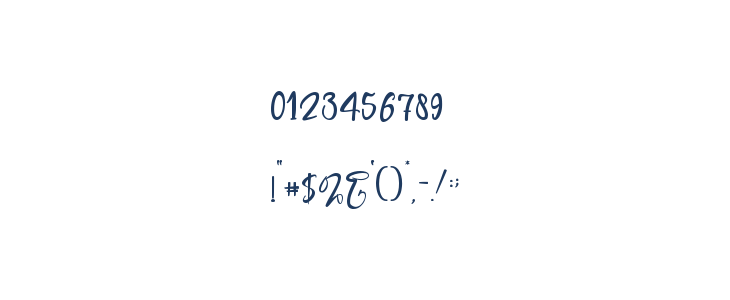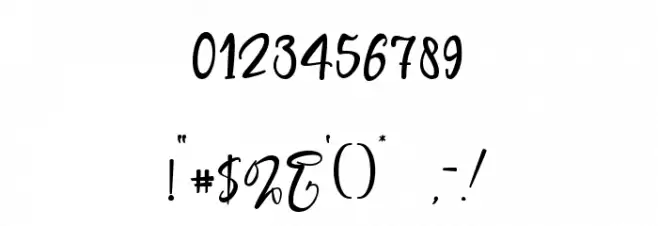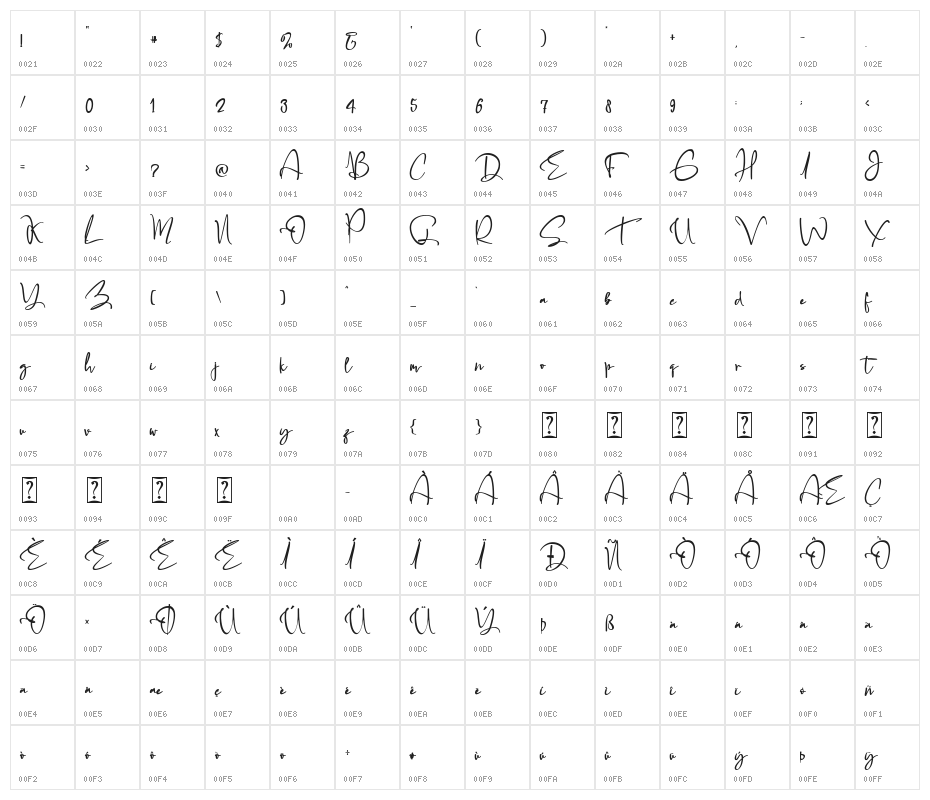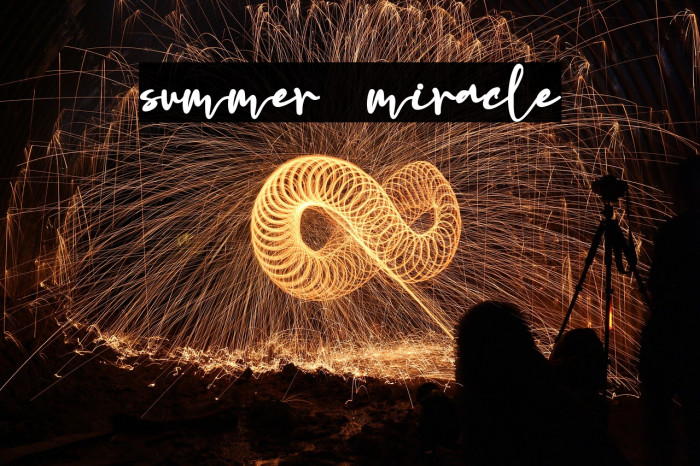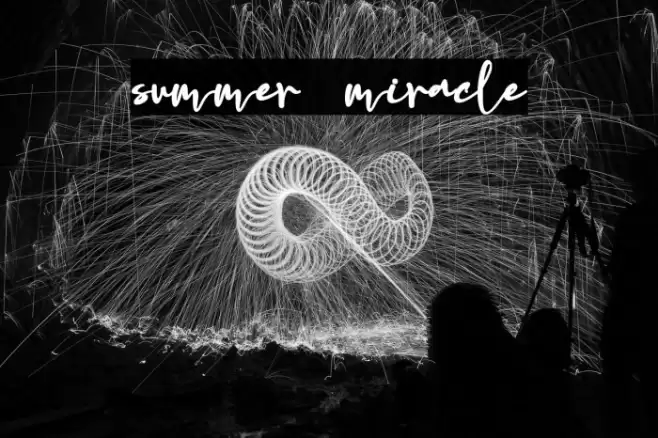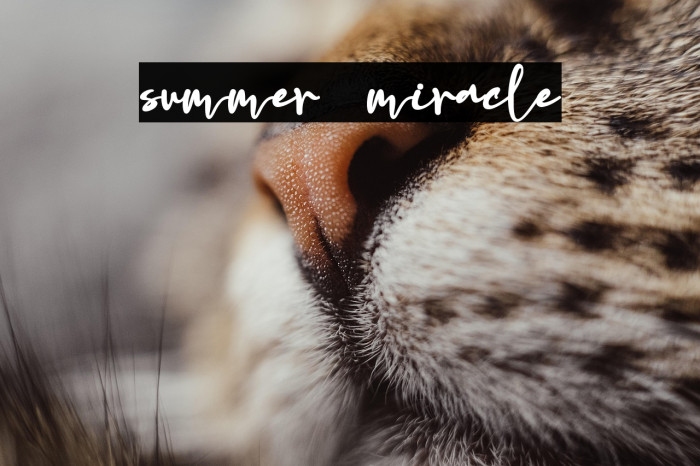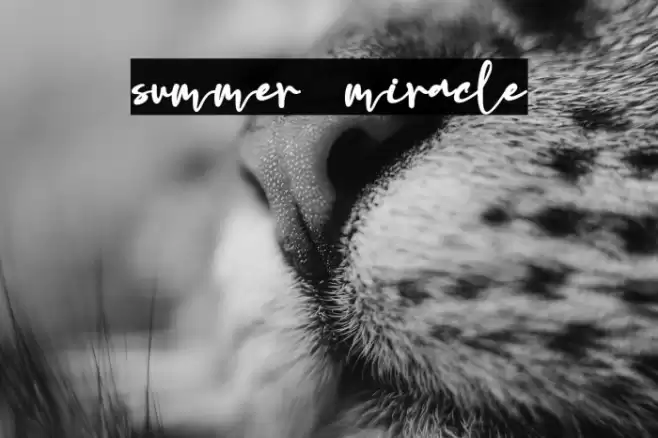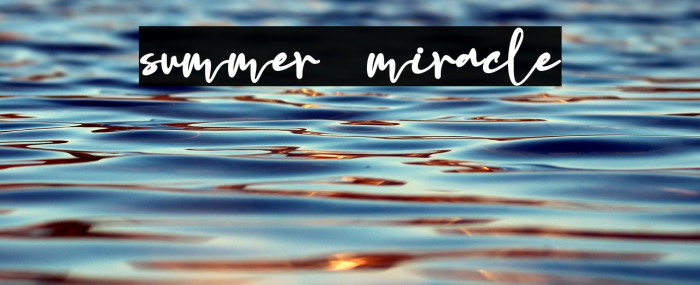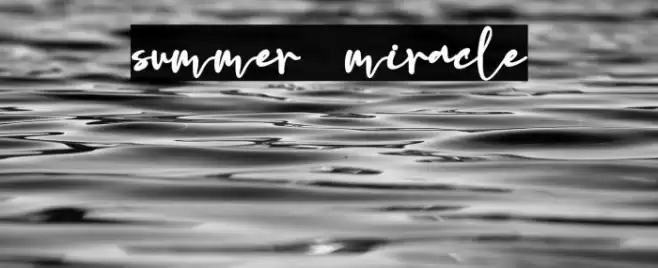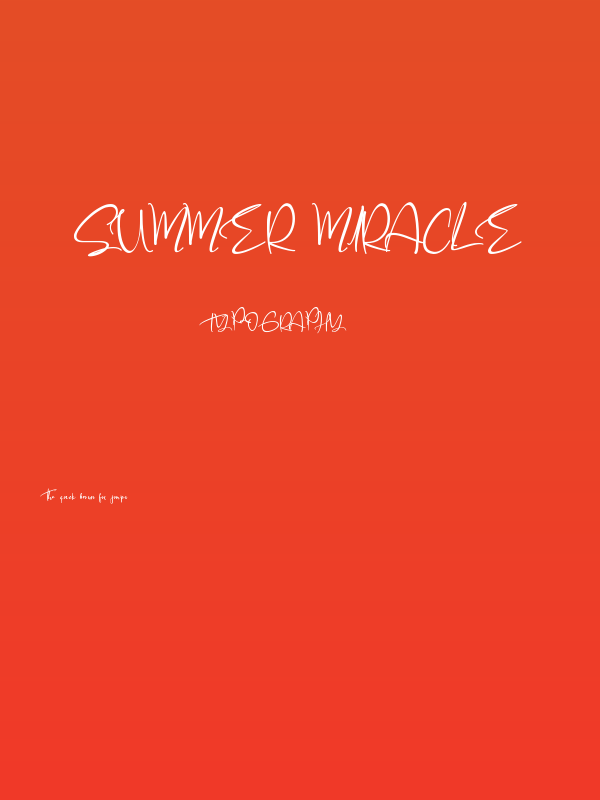
summer miracle Font
summer miracle Description
This font features a lively and expressive handwritten style, characterized by its fluid and dynamic strokes. The uppercase letters exhibit a playful and artistic flair, with varying line thickness that adds a sense of movement and energy. The lowercase letters maintain a cohesive flow, complementing the uppercase with their smooth curves and elegant loops. Numbers and special characters are crafted with the same attention to detail, ensuring consistency throughout the typeface. The overall appearance is both modern and whimsical, making it suitable for creative and informal applications.
| Proposed Projects | Ideal for greeting cards, invitations, branding, social media graphics, and personal projects that require a touch of creativity and warmth. |